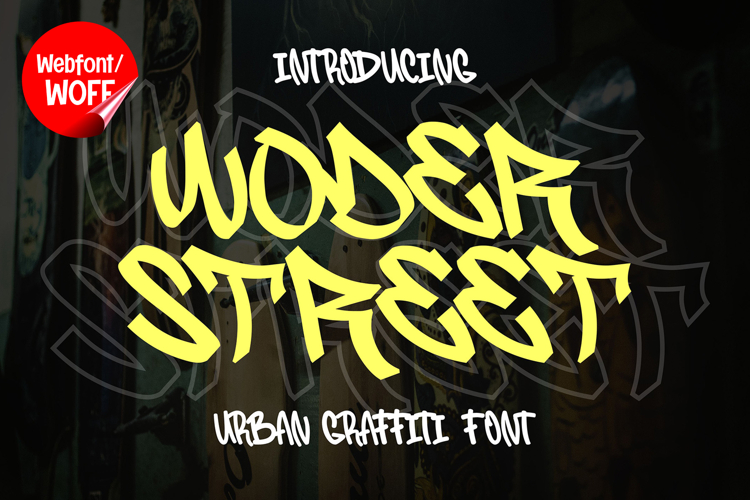
Woder Street | Monoline Handwritten Graffiti Webfont
Woder Street is a monoline handwritten graffiti webfont designed to bring a clean yet expressive urban style into modern website design. With its smooth single-line strokes and natural handwritten flow, this font captures the essence of graffiti tagging while maintaining a refined and balanced look for digital use. It is a strong choice for projects that need a street-inspired aesthetic with a modern and approachable feel.
Woder Street features a complete set of uppercase characters designed with a monoline structure. The consistent stroke weight creates a smooth and cohesive appearance, while the handwritten style adds a natural and dynamic touch. These letterforms are ideal for headlines, banners, hero sections, and featured content where a clean graffiti look is desired.
In addition to letters, the font includes numbers and punctuation, making it flexible for a wide range of website elements. It can be used for promotional text, short messages, navigation highlights, and interface accents. Each character maintains the same monoline consistency, ensuring a unified and polished visual identity throughout the layout.
With multilingual support, Woder Street includes a wide range of accented characters, making it suitable for international websites and global audiences. This allows content to be displayed clearly across different languages while preserving the handwritten graffiti style.
The monoline handwritten graffiti style of Woder Street makes it especially suitable for urban-themed websites, streetwear brands, music platforms, creative portfolios, and lifestyle blogs. Its clean and smooth stroke design offers a modern interpretation of graffiti, making it more versatile for contemporary digital projects. The flowing lines create a sense of movement and energy without overwhelming the design.
Despite its expressive nature, Woder Street is designed with readability in mind. The spacing and stroke consistency are carefully balanced to ensure clarity, particularly in short text applications and display sizes. This makes it effective for both visual highlights and supporting interface elements.
Woder Street is a webfont that combines graffiti inspiration with clean monoline precision. Its smooth curves, consistent structure, and expressive style create a distinctive typographic look that enhances website design. For projects that require a stylish graffiti touch with clarity and versatility, Woder Street provides a balanced and impactful solution.